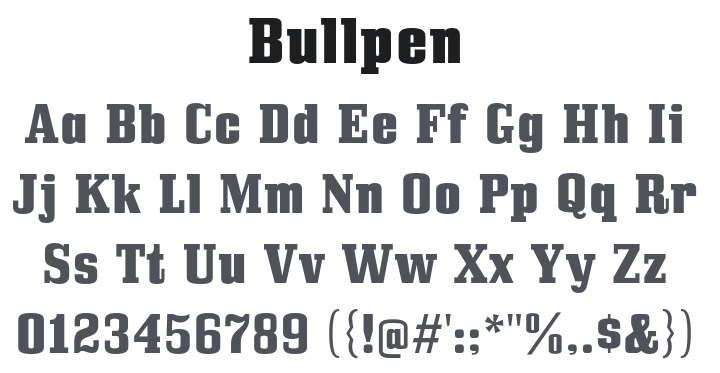
Bullpen Font Family
About Bullpen
Bullpen is a slab serif built for power and precision, combining square proportions with bold mechanical curves and confident serifs. Its full range of weights with italics moves from crisp, understated light cuts to commanding heavy styles, while a dedicated 3D version adds dimensional impact. The italics introduce motion and character through refined curves rather than simple slants. Designed for sports, branding, packaging, and large-scale graphics, Bullpen maintains strength and clarity across every format. With broad Latin language support, it delivers consistency and authority wherever bold communication is required.